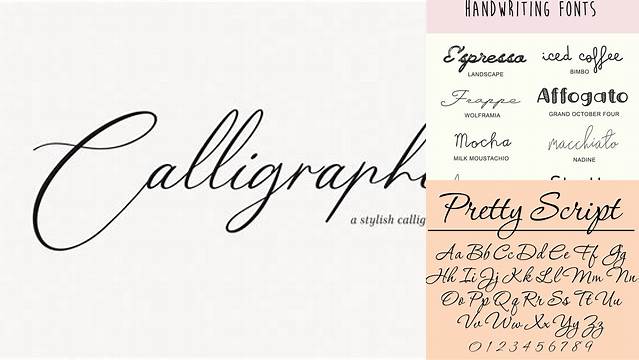
Pretty Handwriting Fonts Generator: Create Custom Fonts
Have you ever admired those beautiful handwritten fonts and wished you could replicate them? Well, you're in luck! In today's digital age, we have access to a fantastic array of tools that can help us generate stunning handwriting fonts with ease. Whether you're looking to add a personal touch to your invitations, create eye-catching social media graphics, or simply explore the art of calligraphy, a pretty handwriting fonts generator can be your best friend. Guys, let's dive into the world of digital calligraphy and discover how you can create fonts that look like they were crafted by a master calligrapher! This article will explore the concept of pretty handwriting font generators, discussing their functionality, benefits, and various applications. We will also delve into the different types of generators available, both online and offline, and provide a step-by-step guide on how to use them effectively. Whether you are a seasoned designer or a beginner looking to add a personal touch to your projects, this article will equip you with the knowledge and resources to create stunning handwritten fonts. We will also touch upon the importance of font licensing and ethical considerations when using these generated fonts for commercial purposes, ensuring you have a comprehensive understanding of the world of digital calligraphy. So, buckle up and get ready to unleash your inner calligrapher! The world of handwritten fonts is vast and varied, offering a diverse range of styles from elegant and flowing scripts to playful and whimsical lettering. With the advent of font generators, creating these styles has become more accessible than ever before. No longer do you need years of practice with a calligraphy pen to achieve a beautiful handwritten effect. These generators allow you to explore different styles, experiment with letterforms, and ultimately create fonts that perfectly capture your personal aesthetic. Imagine designing your wedding invitations with a font that looks like it was penned by hand, or crafting a logo for your business with a unique and memorable handwritten touch. The possibilities are endless. And the best part is, many of these generators are incredibly user-friendly, even for those with no prior experience in font design. They often feature intuitive interfaces and step-by-step instructions, making the process of creating your own fonts a breeze. So, if you've ever dreamed of having your own signature font, now is the time to make that dream a reality.
What are Pretty Handwriting Font Generators?
Pretty handwriting font generators are tools that allow you to create custom fonts that mimic the look of natural handwriting. These generators use algorithms and digital typography techniques to transform your typed text into beautifully handwritten styles. Think of it as having a virtual calligrapher at your fingertips! These generators have revolutionized the way we approach typography, offering a unique blend of technology and artistry. They bridge the gap between the precision of digital fonts and the organic charm of handwritten scripts. Unlike traditional fonts, which are often uniform and rigid, generated handwriting fonts possess a natural flow and variation, giving them a more human and personal feel. This makes them ideal for projects where you want to convey a sense of warmth, authenticity, and creativity. But how exactly do these generators work? At their core, they utilize sophisticated algorithms that analyze the nuances of handwriting, such as stroke thickness, letter slant, and connections between letters. Some generators even allow you to input your own handwriting samples, which they then use as a template to create a font that is uniquely yours. This level of customization is what sets these tools apart from pre-designed fonts, giving you the freedom to express your individual style and personality. The process typically involves typing in the text you want to convert, choosing from a variety of handwriting styles, and then fine-tuning the font to your liking. You can adjust parameters such as letter spacing, font size, and line height, ensuring that the final result perfectly matches your vision. Once you're satisfied, you can download the font file and use it in your various design projects, from word processors to graphic design software. The beauty of handwriting font generators lies in their versatility. They cater to a wide range of needs and skill levels, from professional designers looking to add a unique touch to their work to individuals who simply want to create personalized cards or invitations. They are also a fantastic resource for educators and students, allowing them to explore the art of calligraphy and typography in a fun and engaging way. So, whether you're a seasoned artist or a complete beginner, handwriting font generators offer a powerful and accessible way to create beautiful and expressive typography. They open up a world of possibilities for adding a personal touch to your projects and communicating your message with style and grace.
Benefits of Using a Handwriting Font Generator
There are many benefits to using a handwriting font generator. For starters, they save you time and effort compared to learning traditional calligraphy. You can create stunning fonts in minutes, without needing years of practice. Think of all the time you'll save! These generators offer a significant advantage in terms of efficiency and accessibility. Traditional calligraphy is a skill that requires dedication, patience, and a significant time investment to master. It involves learning the proper techniques for holding a pen, controlling ink flow, and forming letters with precision and grace. While the results can be incredibly rewarding, the learning curve can be steep, and the time commitment may not be feasible for everyone. Handwriting font generators, on the other hand, provide a shortcut to beautiful handwritten typography. They allow you to bypass the technical challenges of traditional calligraphy and focus on the creative aspects of font design. With just a few clicks, you can transform ordinary text into elegant and expressive handwriting styles, saving you countless hours of practice and experimentation. This is particularly beneficial for those who have tight deadlines or lack the time to dedicate to learning calligraphy from scratch. Another key benefit of using a handwriting font generator is the sheer versatility it offers. These generators typically provide a wide range of styles and customization options, allowing you to create fonts that perfectly match your project's needs. You can choose from various script styles, ranging from formal and elegant to casual and playful, and adjust parameters such as letter spacing, font size, and stroke thickness to fine-tune the look and feel of your font. This level of customization is crucial for ensuring that your font effectively conveys your intended message and complements the overall design of your project. Imagine you're designing a wedding invitation and want a font that exudes romance and sophistication. With a handwriting font generator, you can easily select a flowing script style and adjust the letter spacing to create a delicate and elegant look. Or, if you're creating a logo for a children's brand, you might opt for a more playful and whimsical font with rounded letterforms and a slightly irregular stroke. The possibilities are endless. Moreover, handwriting font generators often provide features that allow you to personalize your fonts even further. Some generators, as mentioned earlier, enable you to upload your own handwriting samples, which they then use as a template to create a font that is uniquely yours. This is a fantastic way to add a personal touch to your projects and ensure that your typography truly reflects your individual style and personality. In addition to saving time and offering versatility, handwriting font generators are also incredibly cost-effective. Hiring a professional calligrapher can be expensive, especially for larger projects or ongoing needs. With a font generator, you can create an unlimited number of fonts for a fraction of the cost, making it a budget-friendly option for individuals and businesses alike. So, whether you're a seasoned designer or a beginner looking to add a personal touch to your projects, a handwriting font generator is a valuable tool that can save you time, money, and effort while allowing you to create beautiful and expressive typography.
Types of Handwriting Font Generators
When it comes to handwriting font generators, you have a few options to choose from. There are online generators, which are web-based tools that you can access directly from your browser. These are often free or have a subscription model. Then there are offline generators, which are software programs that you download and install on your computer. Let's break down the pros and cons of each. Online handwriting font generators are typically the most accessible option, as they don't require any software downloads or installations. This makes them incredibly convenient for users who need a quick and easy solution for creating handwritten fonts. Many online generators offer a wide range of styles and customization options, allowing you to experiment with different looks and feels. They often feature user-friendly interfaces that are easy to navigate, even for those with no prior experience in font design. Some popular online handwriting font generators include Calligraphr, FontStruct, and MyScriptFont. These platforms offer a variety of features, such as the ability to upload your own handwriting samples, adjust letter spacing and kerning, and preview your font in real-time. One of the main advantages of online generators is their cost-effectiveness. Many of them offer free versions with basic functionality, while others operate on a subscription model, providing access to more advanced features and a wider selection of styles. This makes them a budget-friendly option for individuals and small businesses who may not have the resources to invest in expensive font design software. However, online generators also have some limitations. Because they are web-based, they require a stable internet connection to function properly. This can be a drawback for users who work in areas with limited or unreliable internet access. Additionally, online generators may have restrictions on the number of fonts you can create or the features you can access in the free version. If you need more advanced functionality or want to create a large number of fonts, you may need to upgrade to a paid subscription. Offline handwriting font generators, on the other hand, offer a more robust and feature-rich experience. These programs are installed directly on your computer, allowing you to work on your fonts without an internet connection. They often provide a wider range of customization options and more advanced tools for fine-tuning your designs. Some popular offline handwriting font generators include FontLab Studio, Glyphs, and RoboFont. These programs are professional-grade font design tools that are used by typographers and graphic designers around the world. They offer a comprehensive set of features for creating and editing fonts, including the ability to draw letterforms from scratch, adjust kerning and spacing, and generate font files in various formats. One of the main advantages of offline generators is their versatility and power. They allow you to create highly customized fonts that perfectly match your specific needs and aesthetic preferences. They also offer greater control over the technical aspects of font design, such as hinting and kerning, which are crucial for ensuring that your font looks good across different devices and platforms. However, offline generators also come with a higher price tag. These programs are typically more expensive than online generators, and they may require a significant investment of time and effort to learn how to use effectively. They are best suited for professional designers and typographers who need the power and flexibility of a full-featured font design tool. In summary, the choice between online and offline handwriting font generators depends on your specific needs and budget. Online generators are a convenient and cost-effective option for creating basic handwritten fonts, while offline generators offer a more robust and feature-rich experience for professional designers.
How to Use a Handwriting Font Generator: A Step-by-Step Guide
Okay, guys, ready to learn how to use a handwriting font generator? It's easier than you think! Let's walk through the process step-by-step so you can start creating your own beautiful fonts today. First, you'll need to choose a handwriting font generator that suits your needs. As we discussed earlier, there are both online and offline options available. For this guide, we'll focus on using an online generator, as they are generally more accessible and user-friendly for beginners. Popular online generators include Calligraphr, MyScriptFont, and FontStruct. Take some time to explore these platforms and see which one resonates with you. Consider factors such as the range of styles offered, the customization options available, and the ease of use of the interface. Once you've selected a generator, the next step is to create an account or log in. Many online generators require you to create an account before you can start using their services. This typically involves providing your email address and creating a password. Creating an account allows you to save your fonts and access them later, as well as potentially unlock additional features and benefits. If you already have an account, simply log in using your credentials. Now comes the fun part: choosing a template or style. Most handwriting font generators offer a variety of templates or styles to choose from. These templates provide a starting point for your font design and can help you achieve the specific look and feel you're aiming for. Some generators offer a wide range of styles, from elegant and flowing scripts to playful and whimsical lettering. Browse through the available options and select a template that aligns with your project's needs and your personal preferences. Once you've chosen a template, you'll need to enter your text. This is where you'll type in the letters, numbers, and symbols that you want to include in your font. Most generators provide a text box or input field where you can enter your text. Be sure to type accurately and carefully, as any mistakes you make here will be reflected in your final font. After entering your text, you can customize your font. This is where you can really make your font your own by adjusting various parameters such as letter spacing, font size, stroke thickness, and slant. Some generators offer even more advanced customization options, such as the ability to adjust the kerning (the spacing between individual letters) and hinting (instructions that help the font render properly on different devices). Experiment with these settings to achieve the desired look and feel for your font. Once you're satisfied with your customizations, it's time to preview your font. Most generators provide a preview feature that allows you to see how your font will look in different contexts. This is an important step, as it allows you to identify any issues or areas for improvement before you download your font. Take the time to carefully review the preview and make any necessary adjustments. Finally, you can download your font. Once you're happy with your font design, you can download the font file in a format that is compatible with your operating system and software applications. Most generators offer a variety of font formats, such as TTF (TrueType Font) and OTF (OpenType Font). Choose the format that is most suitable for your needs and save the font file to your computer. And that's it! You've successfully created your own handwriting font using a handwriting font generator. Now you can use your font in your various design projects, from word processors to graphic design software. Remember to always respect font licensing and ethical considerations when using your fonts, especially for commercial purposes.
So, there you have it, guys! A deep dive into the world of pretty handwriting fonts generator. We've covered what they are, their benefits, the different types available, how to use them, and the importance of font licensing and ethical considerations. With these tools, you can unleash your inner calligrapher and create stunning fonts that add a personal touch to any project. Whether you're designing invitations, creating social media graphics, or just experimenting with typography, a handwriting font generator can be a valuable asset in your creative toolkit. Remember to explore different generators, experiment with styles, and always respect font licensing and ethical guidelines. Now go out there and create some beautiful fonts!